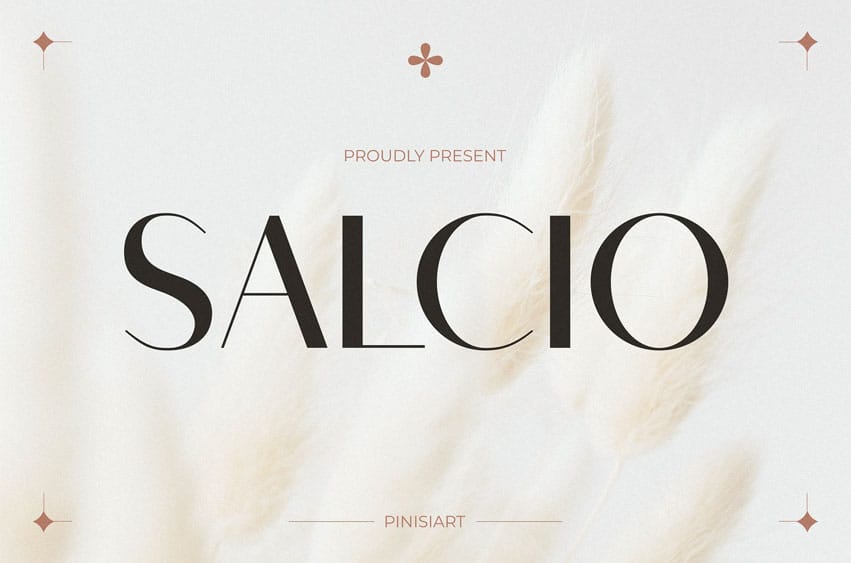
Salcio Font is a modern luxury typeface with refined contrast, elegant proportions, and gentle curves that create a sophisticated presence. Its sleek serif structure blends classic editorial style with contemporary clarity, making it ideal for fashion, lifestyle, and beauty branding. With its smooth flow and graceful terminals, Salcio brings a balance of strength and delicacy, perfect for projects that demand timeless elegance with a modern twist.
From editorial magazines to Instagram visuals, Salcio captures attention while maintaining a sense of effortless sophistication. Its versatile style makes it suitable for brand identities, packaging, fashion campaigns, luxury product labels, wedding stationery, and high-end digital content. Designers seeking a typeface that conveys trust, class, and modern elegance will find Salcio a perfect choice.
Key Features :
- Elegant contrast for editorial-inspired layouts
- Clean yet expressive serifs with modern flair
- Perfect balance between readability and luxury tone
- Works across print, digital, and packaging projects
- Enhances brand storytelling with refined character design
- Basic Latin A-Z and A-z